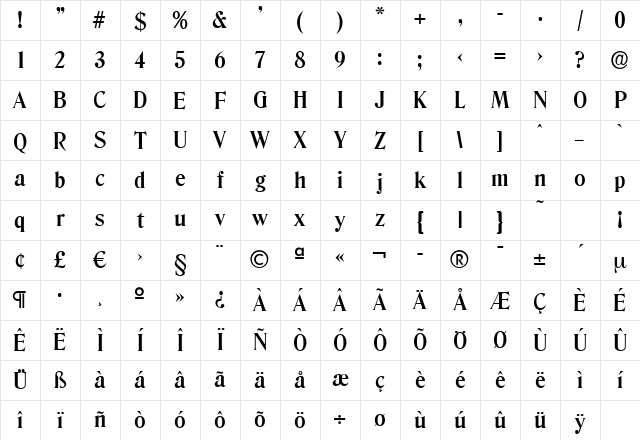
ThomasBecker Bold Free Font
ThomasBecker Bold
ThomasBecker Family
ThomasBecker Bold
Design Context for ThomasBecker
ThomasBecker is a composed and adaptable typeface that performs quietly and consistently across a wide range of design contexts. Its bold stroke weight gives it real presence on the page.